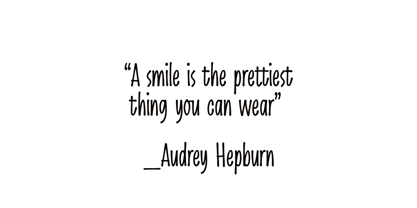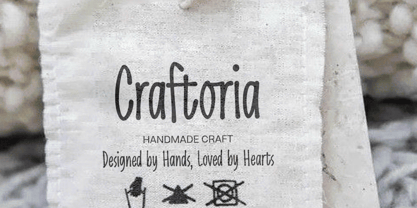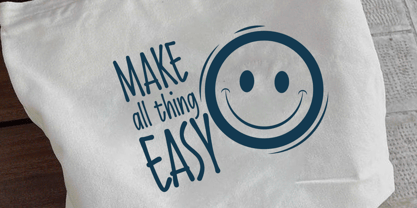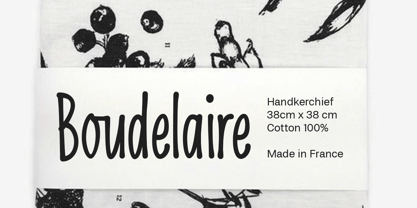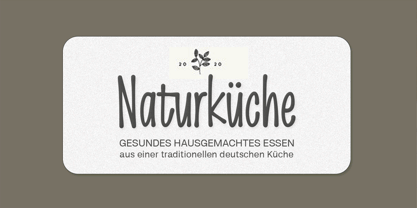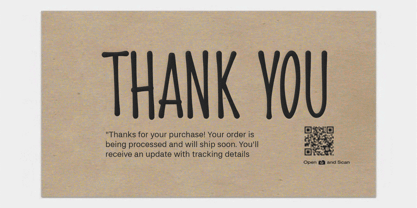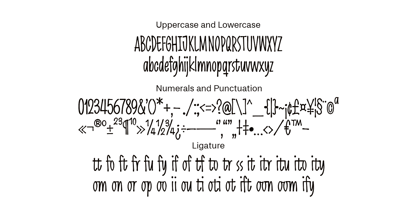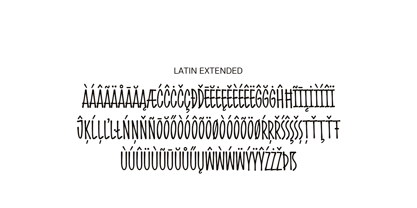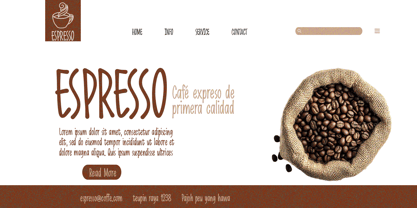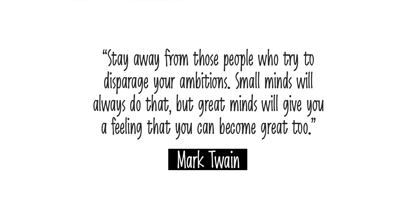
Malbousquet
Malbousquet is a handwritten typeface that embodies a natural, expressive, and elegant feel. Designed with organic strokes, this font is perfect for projects that require a personal and artistic touch.
Key Features:
• Natural & Authentic – A dynamic handwritten style with natural imperfections, giving it a human and expressive touch.
• Smooth & Flowing Strokes – Soft, flowing lines create a balance between casual and elegant aesthetics.
• Letter Variations & Ligatures – Includes diverse character variations and ligatures, enhancing the natural handwriting feel.
• Versatile Usage – Ideal for branding, logos, invitations, packaging, quotes, and other creative design projects.
Malbousquet is more than just a font; it’s a reflection of the beauty of flowing handwriting, bringing warmth and personality to every word.